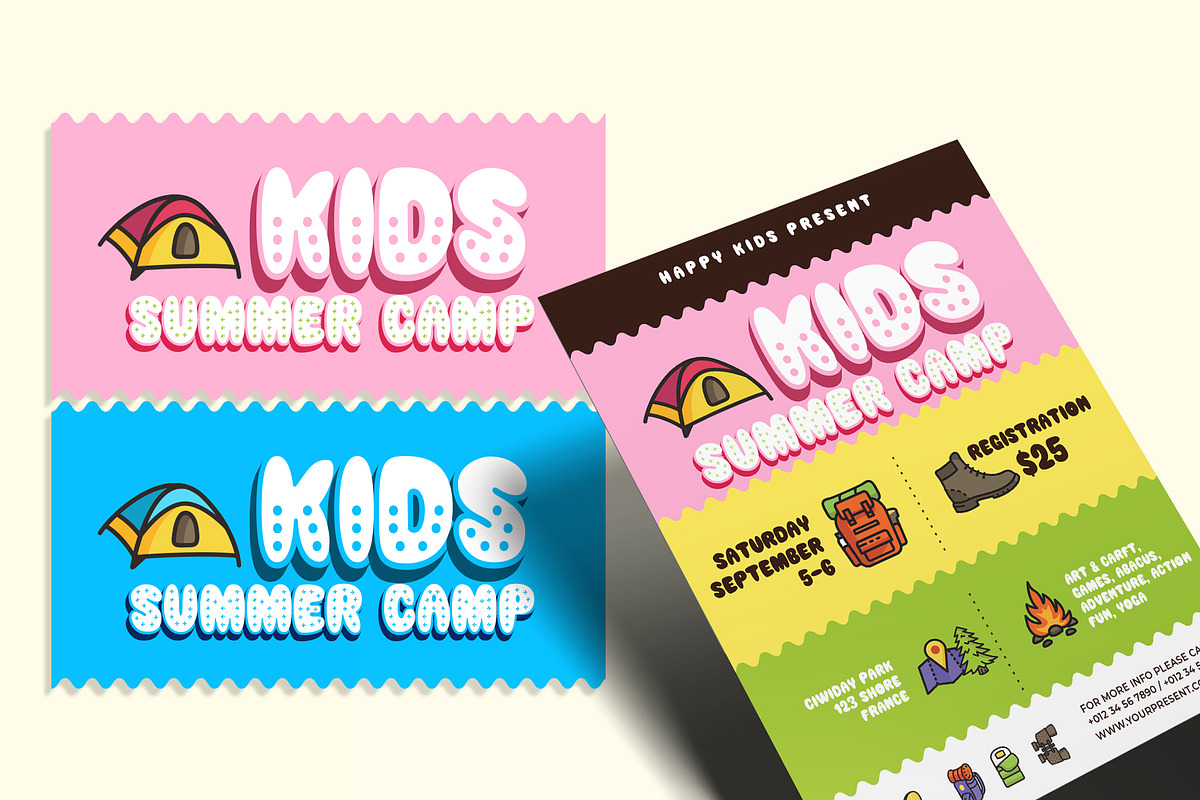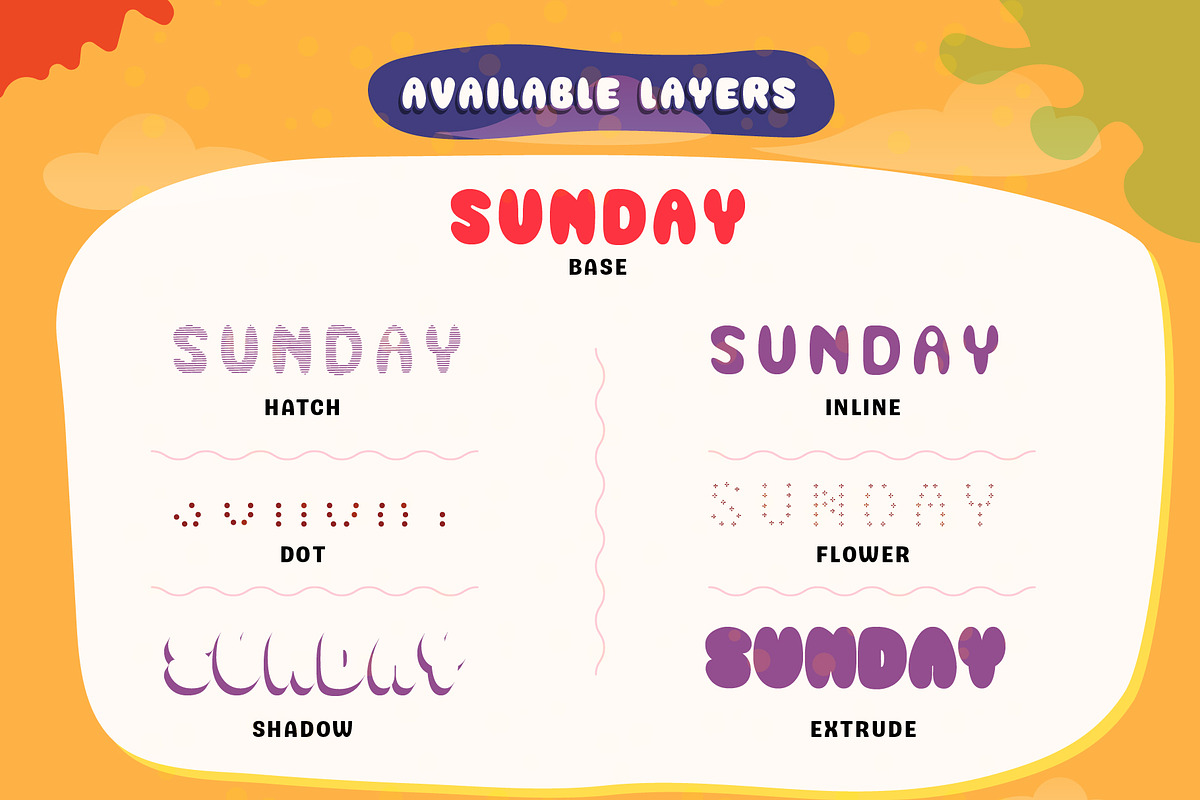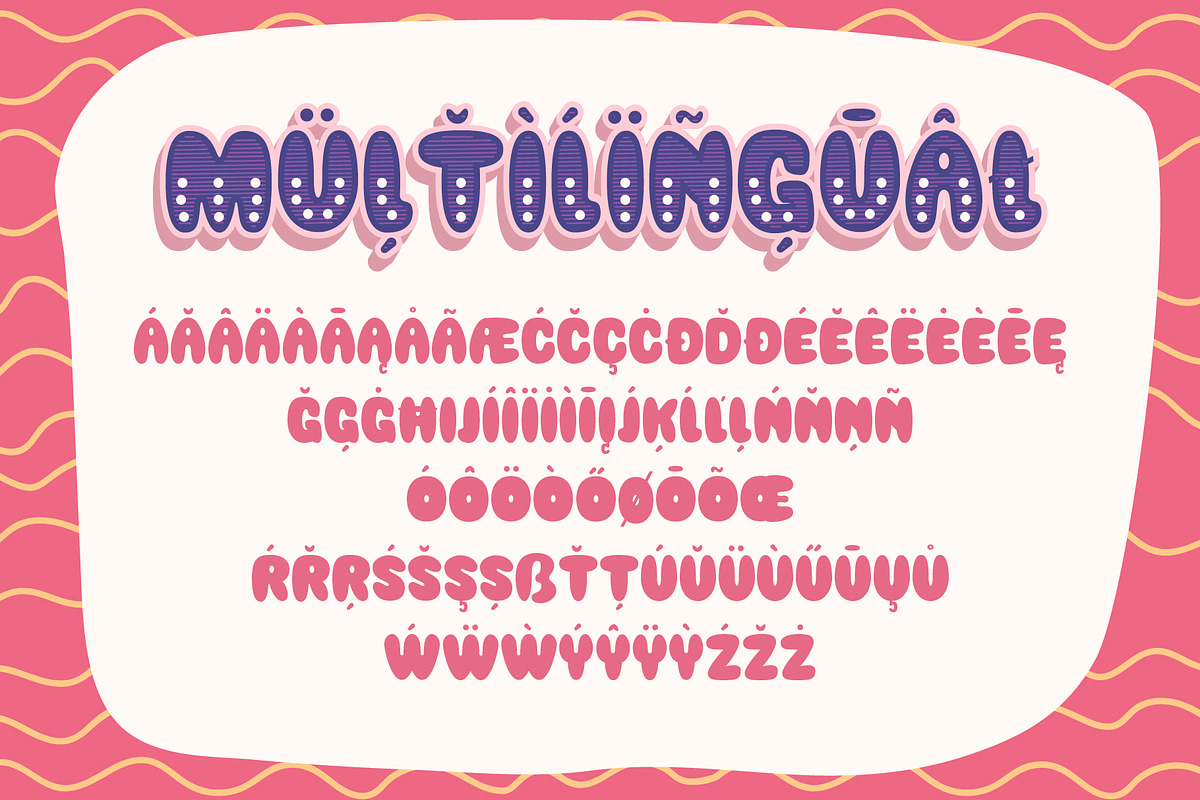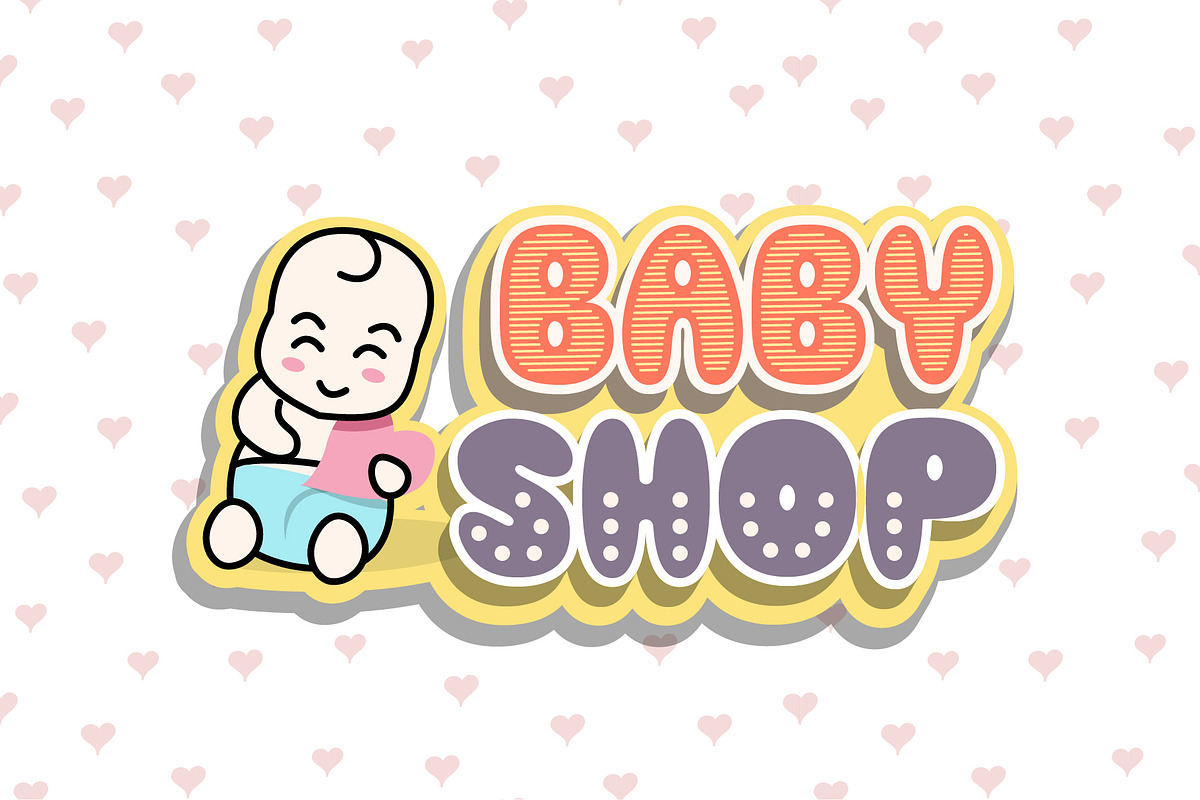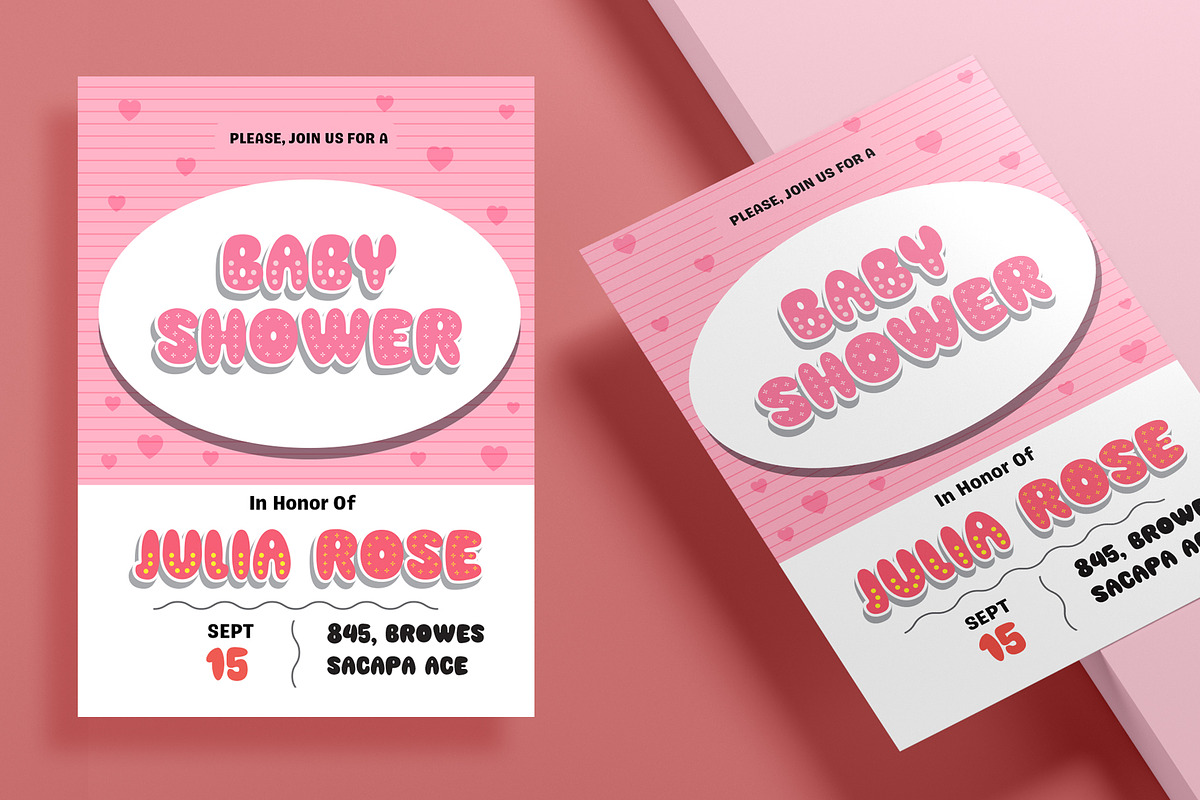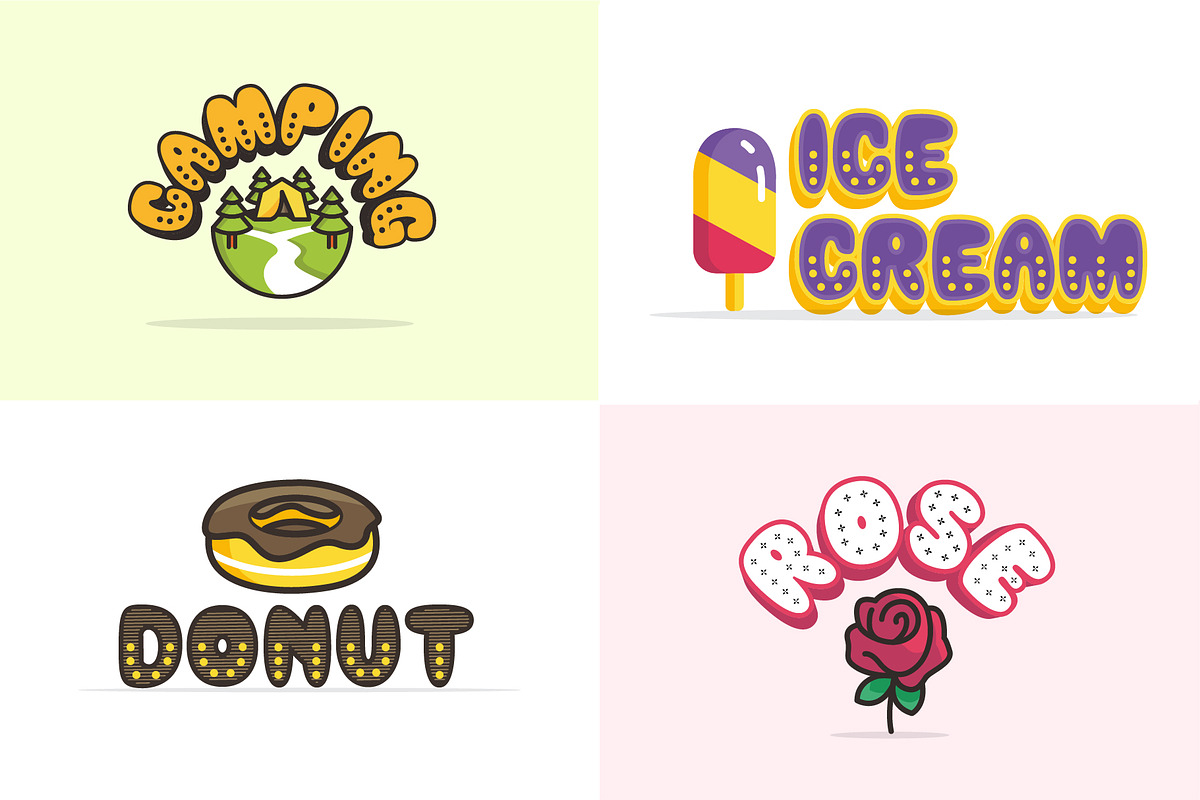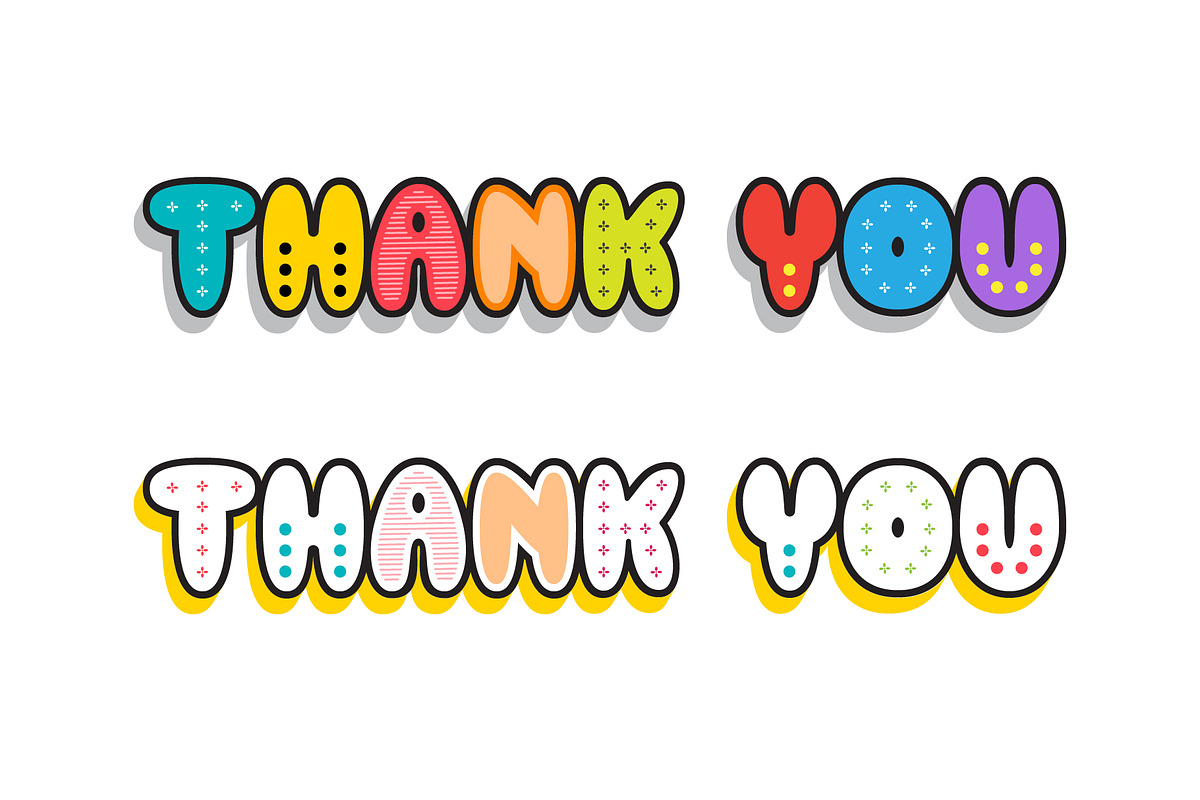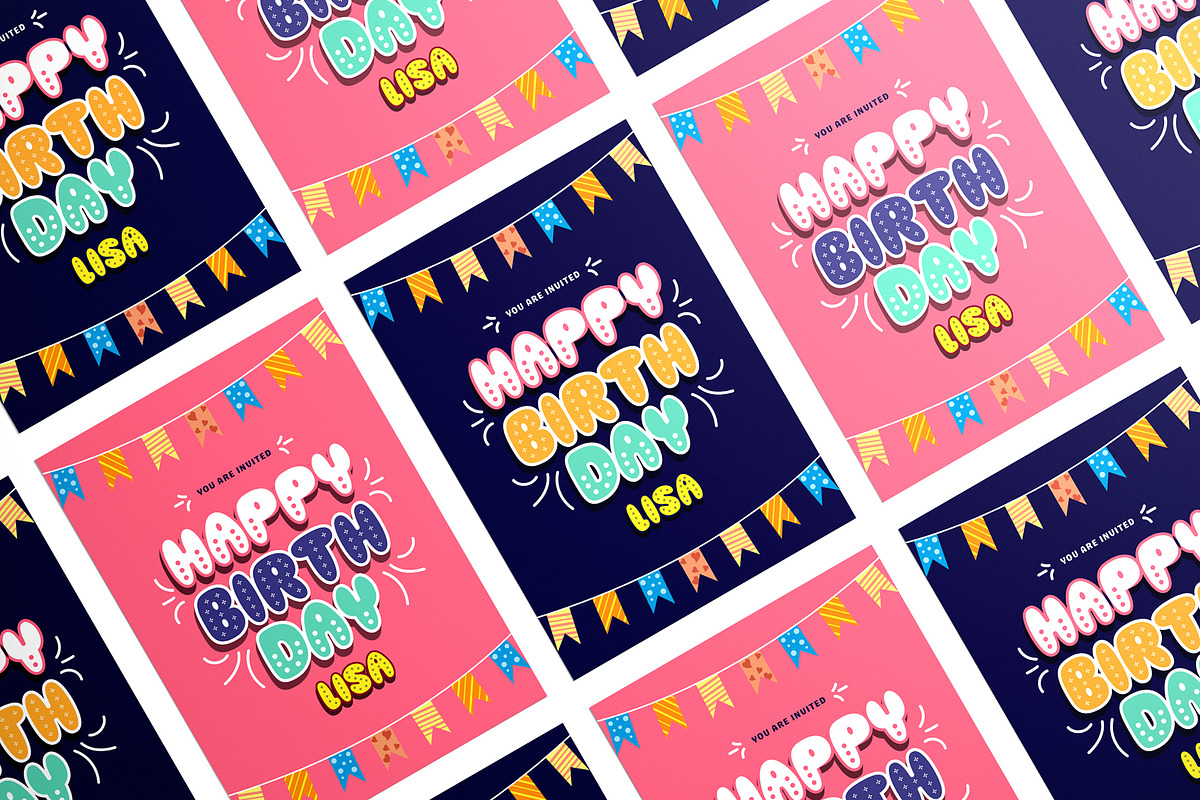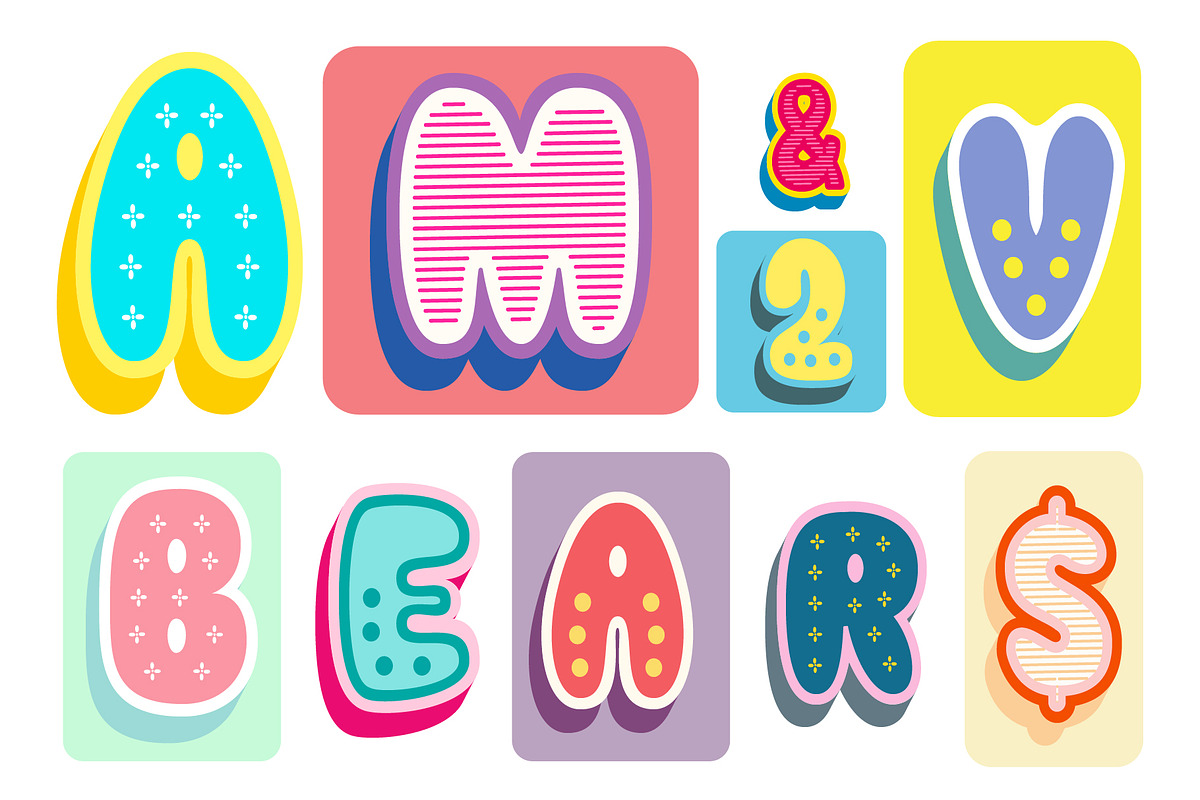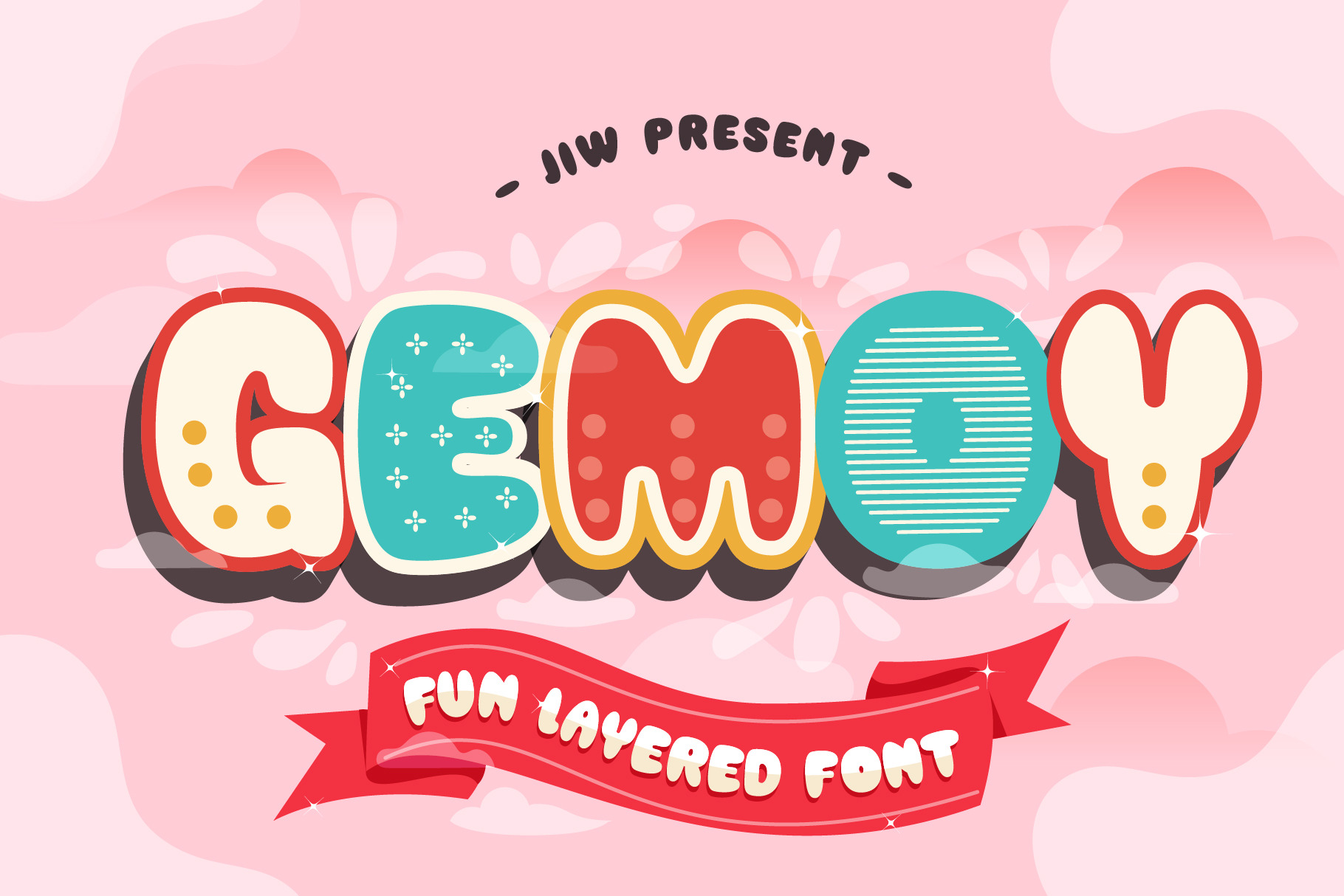
GEMOY - Fun Layered Font
Introducing
Gemoy Layered Font
Gemoy, A new carefully crafted layered rounded Typeface. The Ideas of this fonts are from wide range of reference, baby, kids, school, cafe, food desert & beverages are our main focus for this fonts. So the looks of this fonts must be in the wide range of the reference above. It’s Versatile, Fun, Cute and Beauty feel that you get in Gemoy Typeface
Gemoy Created with 7 Layer : Base, Extrude, Shadow, Dot, Flower, Hatch & Inline. Perfect fitted layer to give you a more contrast, more bold look of the title. Our creation on the display to give you a reference what it looks like on your project. such as Branding, Header, Logotype, Poster, and etc. It shows that Gemoy clearly can accommodate various design style.